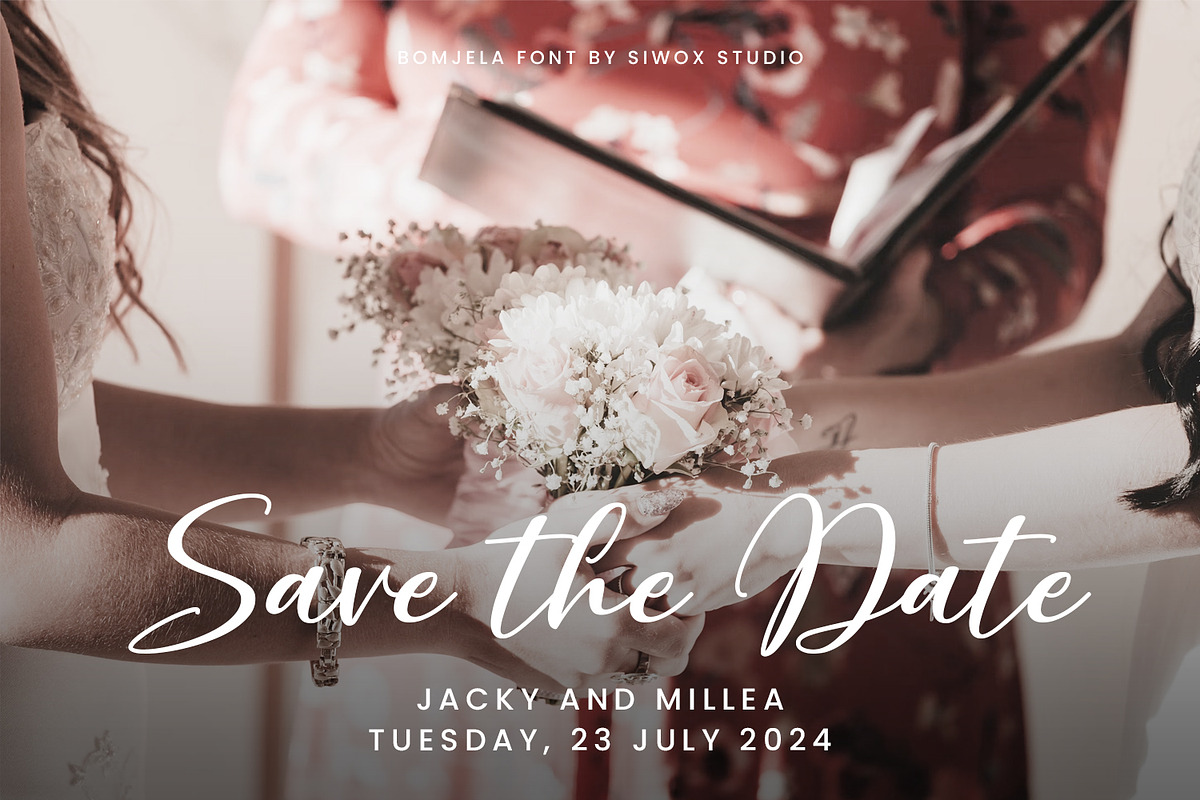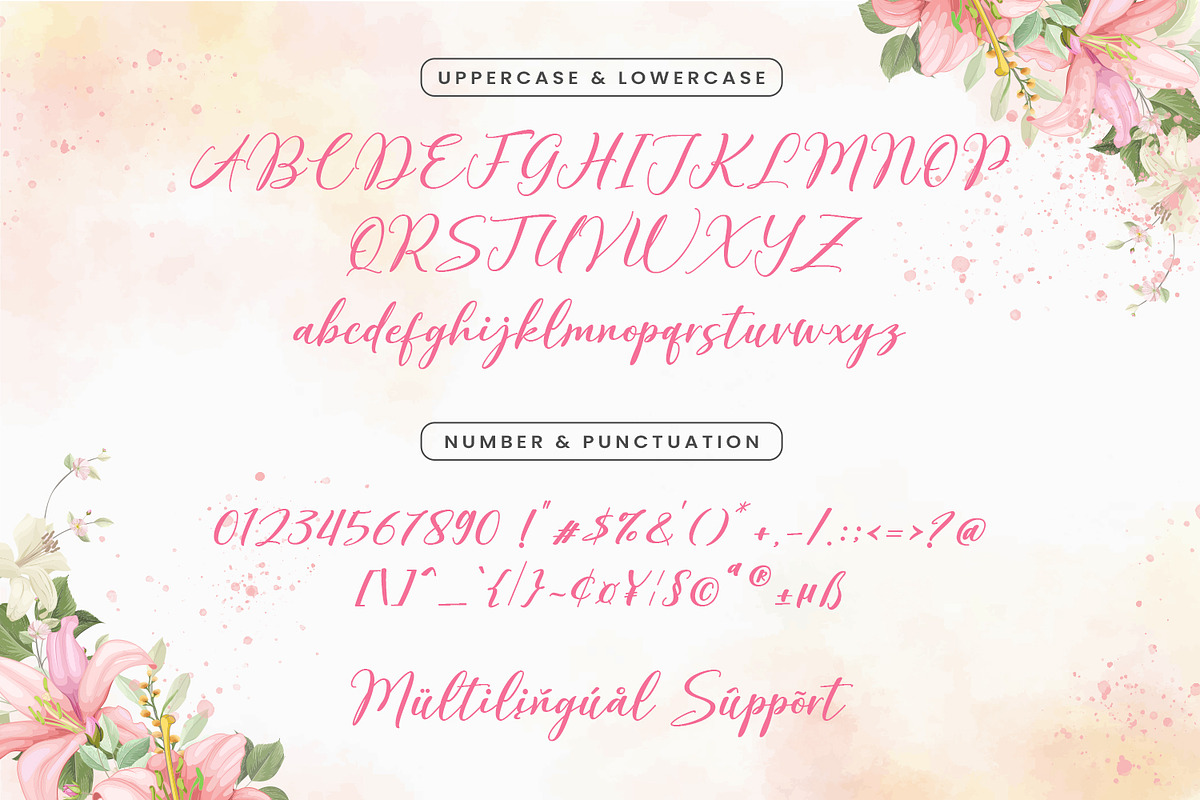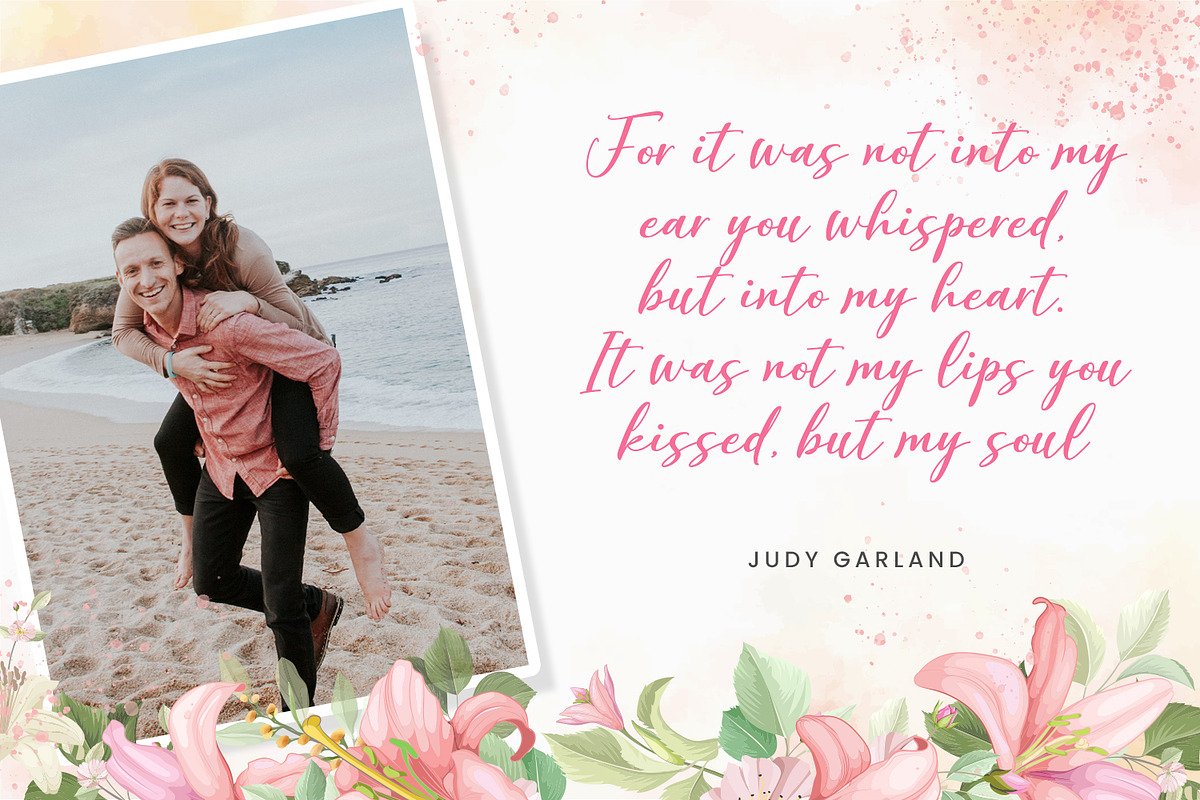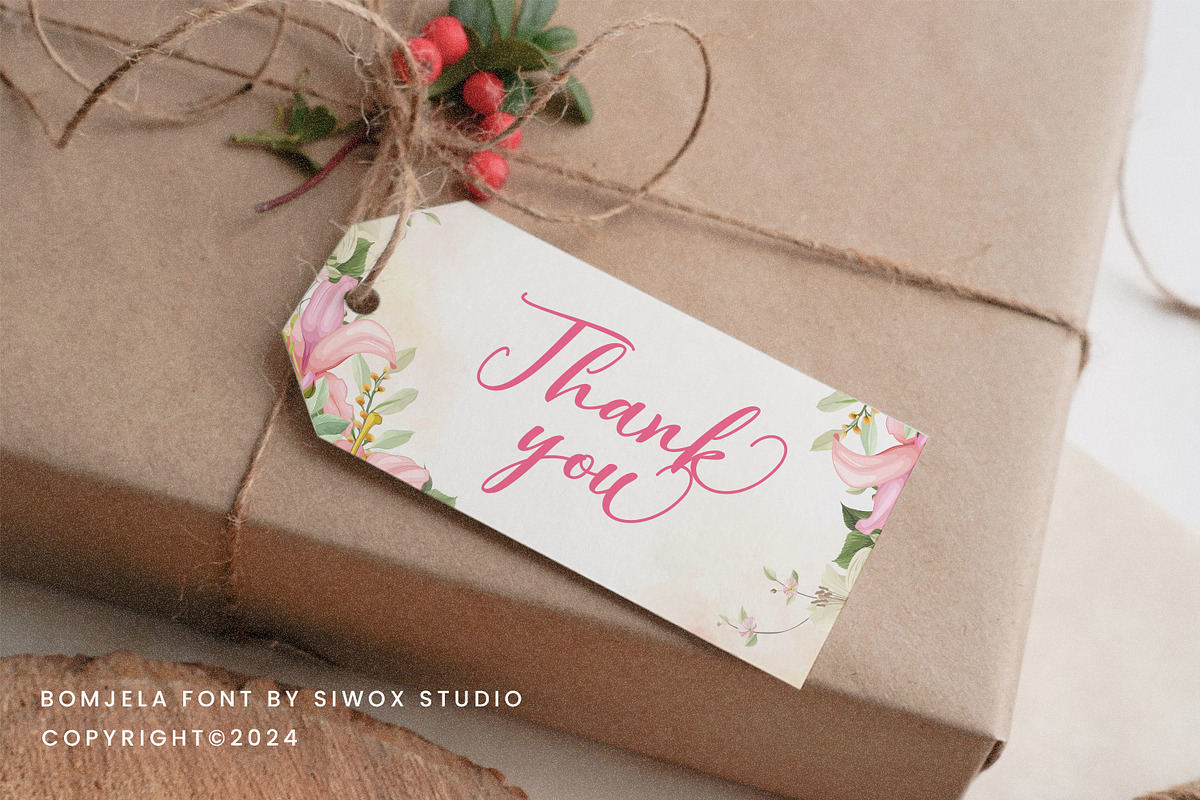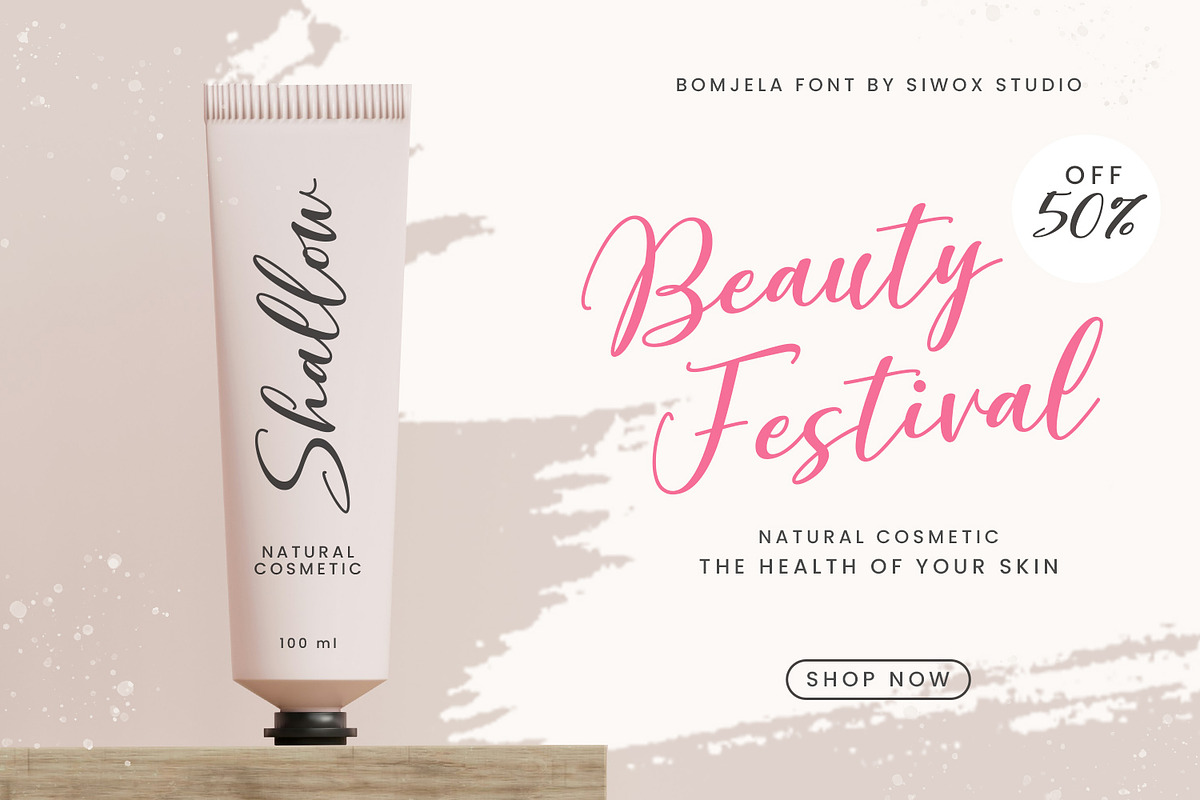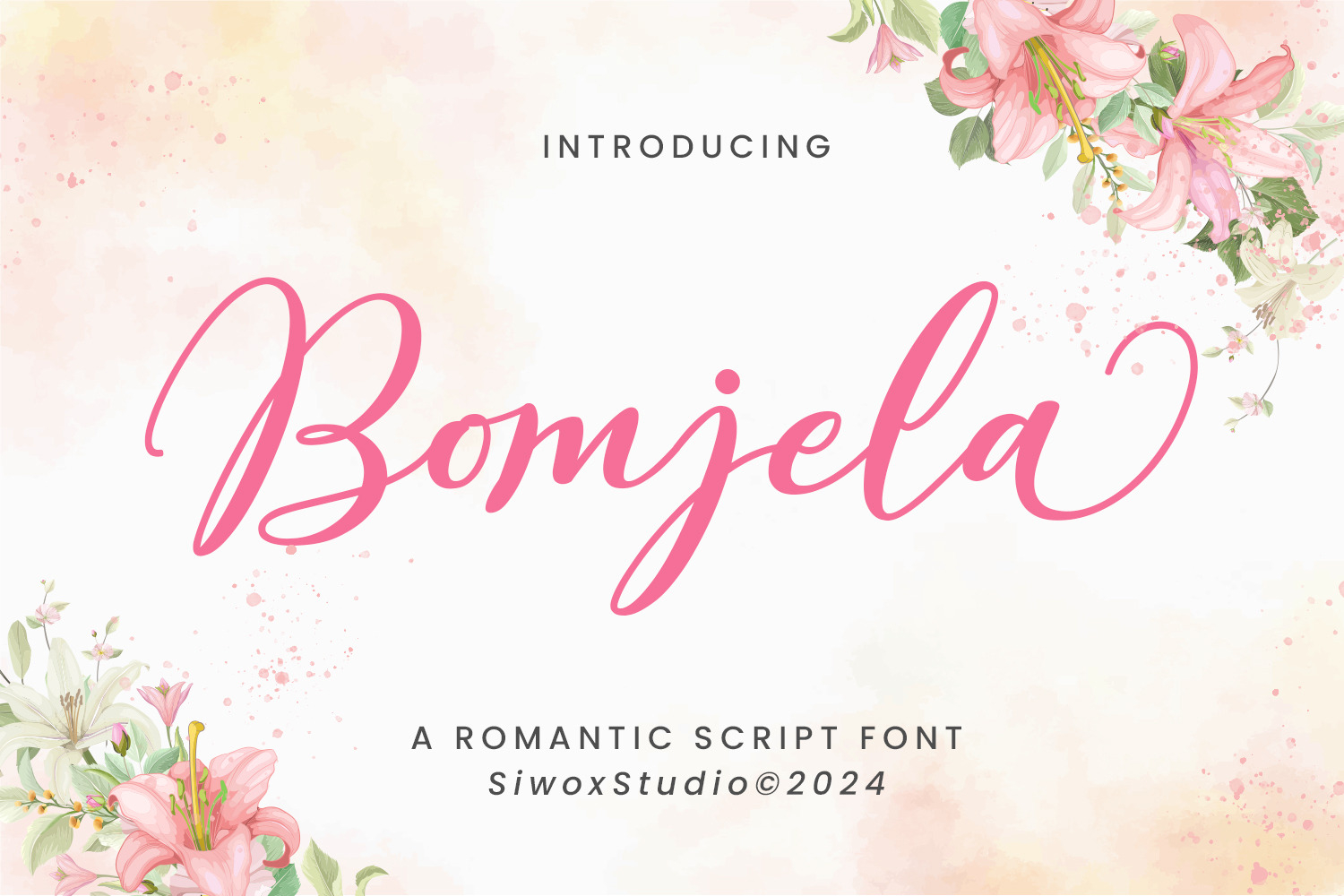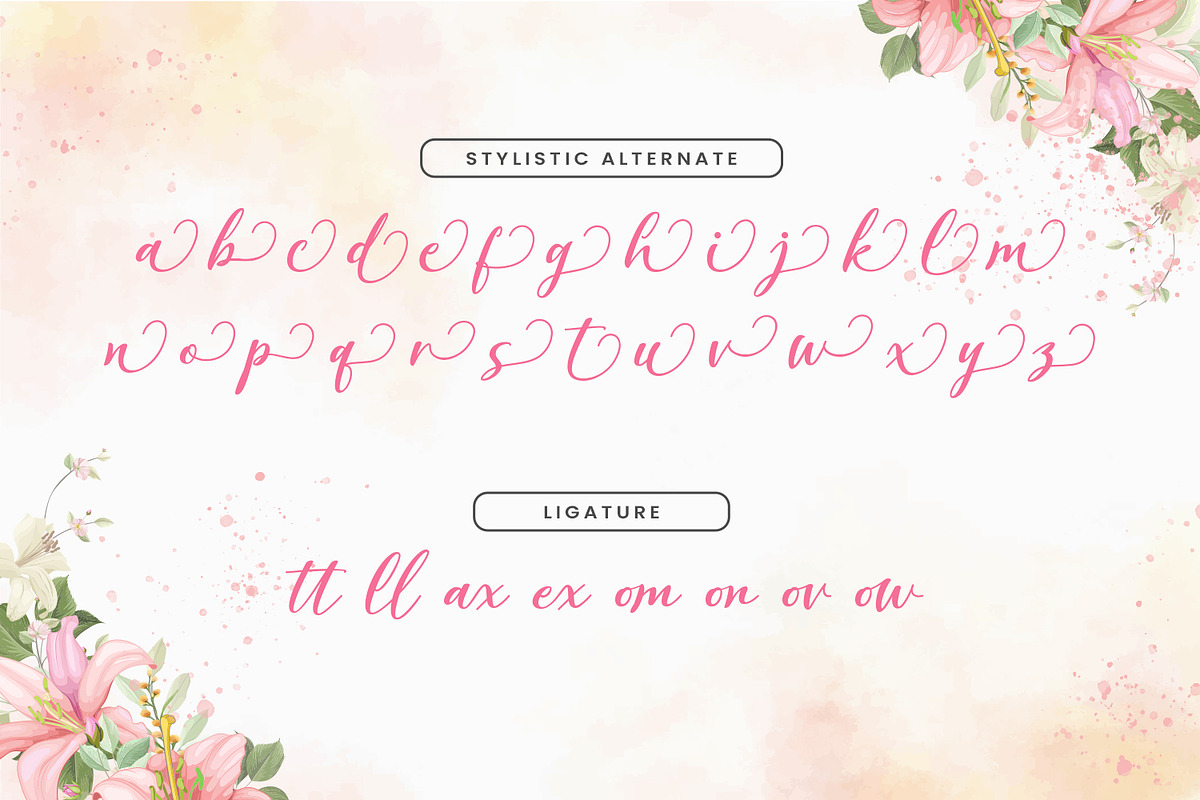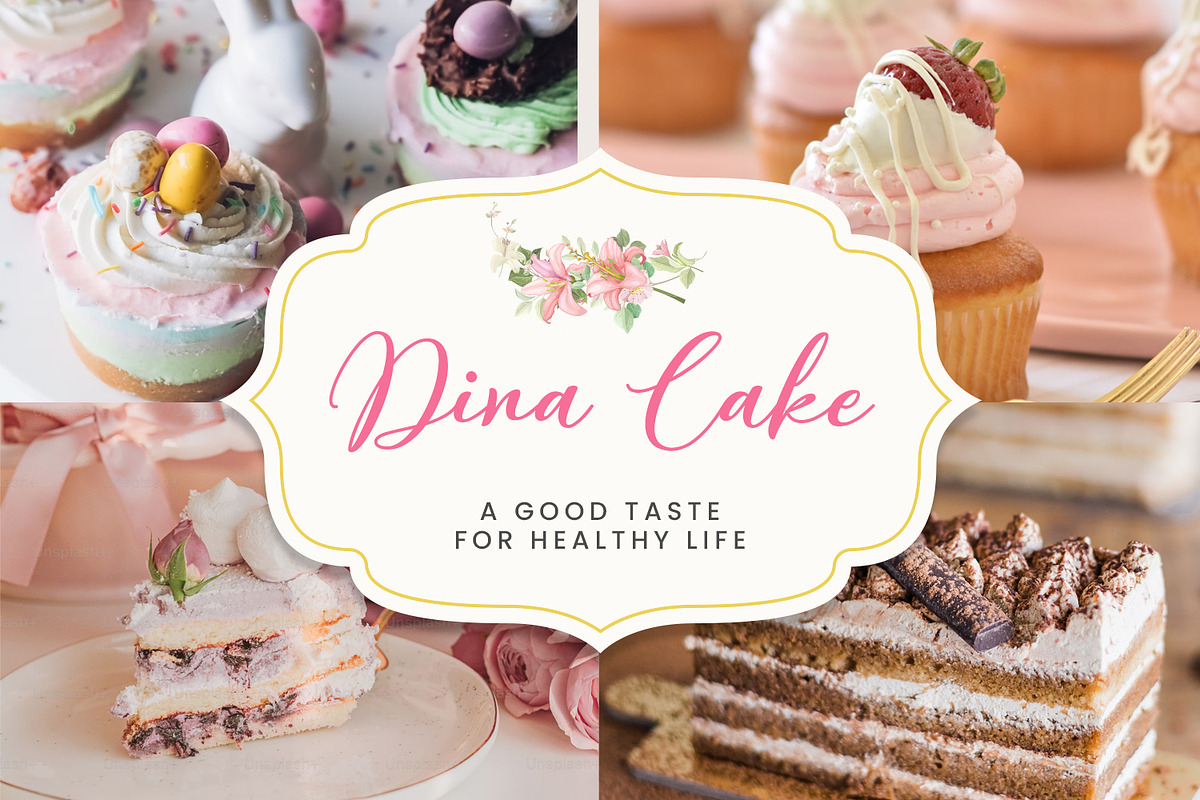
Bomjela - a romantic font
Bomjela is a light and fresh handwritten font that will inspire any design project with its incredibly romantic feel.
Bomjela would perfect for invitation, logos & branding, photography, advertisements, watermark, social media posts, product packaging, product designs, label, wedding designs, stationery, special events or anything that need handwriting taste.